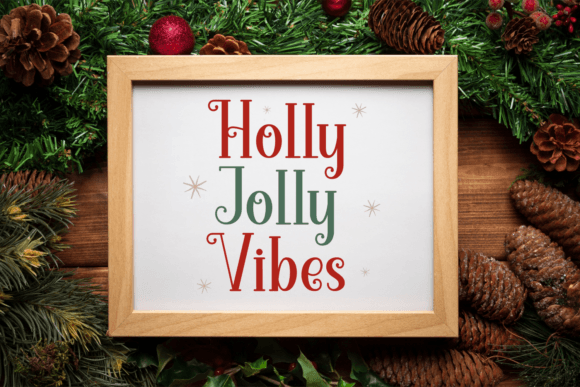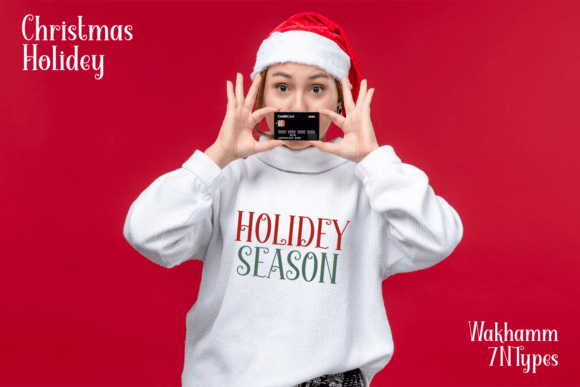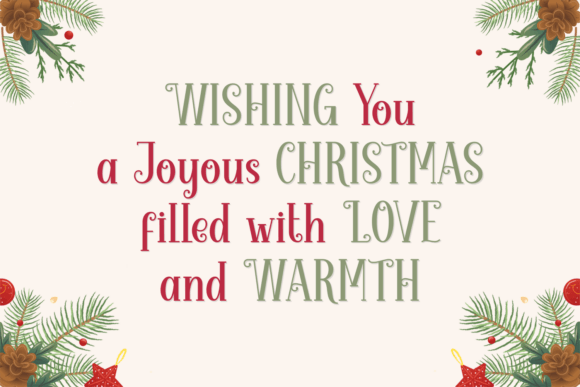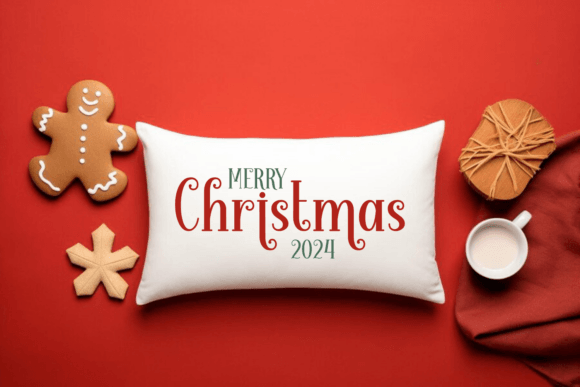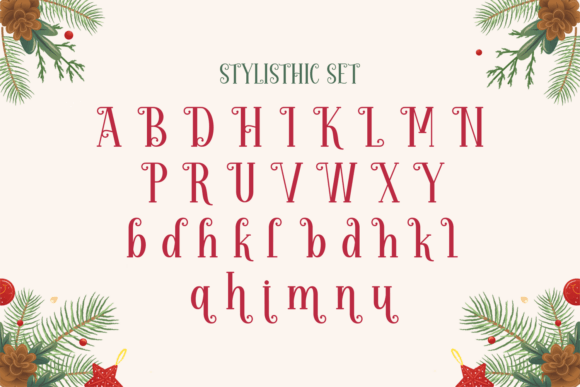
Introducing Christmas Holiday Font: Add a Festive Touch to Your Designs
Are you looking for a font that captures the essence of the holiday season? Look no further than Christmas Holiday Font, a modern curly serif font designed to bring a touch of elegance and festivity to your designs. With its stylish serifs and elegant curves, this font is perfect for creating holiday cards, invitations, and seasonal projects that will leave a lasting impression.
What Makes Christmas Holiday Font Special?
Christmas Holiday Font is a unique and versatile font that stands out from the crowd. Its curly serifs and modern design make it a great choice for designers and crafters who want to add a touch of sophistication and whimsy to their work. Here are some of the key features that make Christmas Holiday Font special:
- Elegant Curves: The font features elegant curves that give it a sophisticated and refined look, perfect for creating high-end designs.
- Stylish Serifs: The curly serifs add a touch of whimsy and festivity to the font, making it perfect for holiday-themed designs.
- Modern Design: The font has a modern design that makes it versatile and suitable for a wide range of applications, from digital designs to print materials.
- Easy to Read: Despite its curly serifs, the font is easy to read, making it perfect for body text and headlines.
Uses for Christmas Holiday Font
Christmas Holiday Font is a versatile font that can be used for a wide range of applications, including:
- Holiday Cards: Create beautiful and elegant holiday cards that will impress your friends and family.
- Invitations: Use the font to create stylish and festive invitations for holiday parties, weddings, and other events.
- Seasonal Projects: Add a touch of festivity to your seasonal projects, such as flyers, brochures, and social media graphics.
- Digital Designs: Use the font to create digital designs, such as holiday-themed website headers, social media graphics, and email newsletters.
Tips for Using Christmas Holiday Font
Here are some tips for using Christmas Holiday Font to get the most out of your designs:
- Pair it with a Simple Font: Pair Christmas Holiday Font with a simple font to create a beautiful contrast and add visual interest to your designs.
- Experiment with Colors: Experiment with different colors to find the perfect combination that matches your brand or design style.
- Use it for Headlines: Use Christmas Holiday Font for headlines and titles to add a touch of festivity and elegance to your designs.
- Don’t Overuse it: Don’t overuse the font – use it sparingly to create a greater impact and avoid overwhelming your designs.
| Font Name | Christmas Holidey Font |
| Author | Wakhamm (7NTypes) |
- Modern curly serif font
- Elegant curves and stylish serifs
- Perfect for holiday cards, invitations, and seasonal projects
- Easy to read
- Versatile and suitable for a wide range of applications